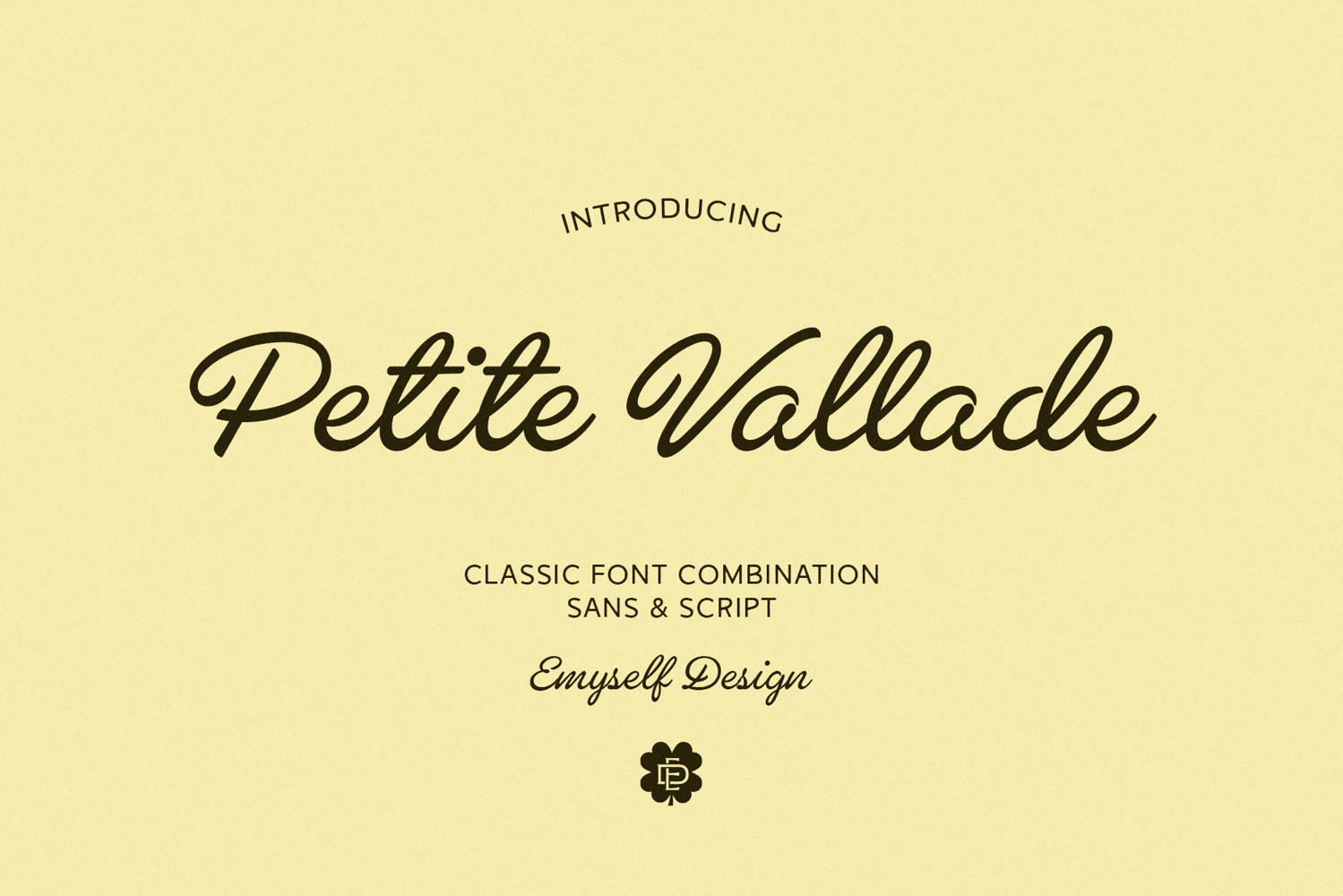
ED Petite Vallade - Font duo
ED Petite Vallade is a classic and elegant font duo that blends the beauty of a flowing script with the simplicity of a rounded sans serif. Designed to feel timeless yet versatile, this font brings a soft and refined character to your work.
The script style features smooth curves and a natural handwritten feel, giving your design a graceful and classic touch. Paired with a clean, rounded sans serif, it creates a balanced combination that is easy to read and effortlessly harmonious.
This pairing allows you to mix and match styles for a wide range of creative needs—whether you want something expressive, minimal, or somewhere in between.
• Logo design
• Branding projects
• Social media content
• Packaging
• Invitations & quotes
• Editorial layoutsidale